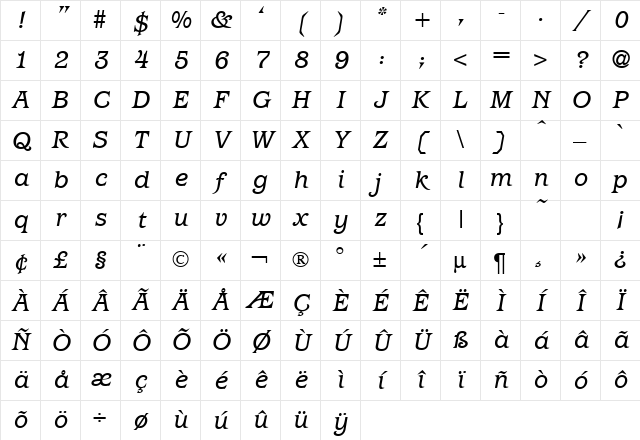
Bacci is a composed and adaptable typeface that performs quietly and consistently across a wide range of design contexts. The slanted form adds forward momentum and visual energy.
Pro Tip: Use Bacci for emphasis, pull quotes, and subheadings where its slanted energy can add rhythm to the layout.